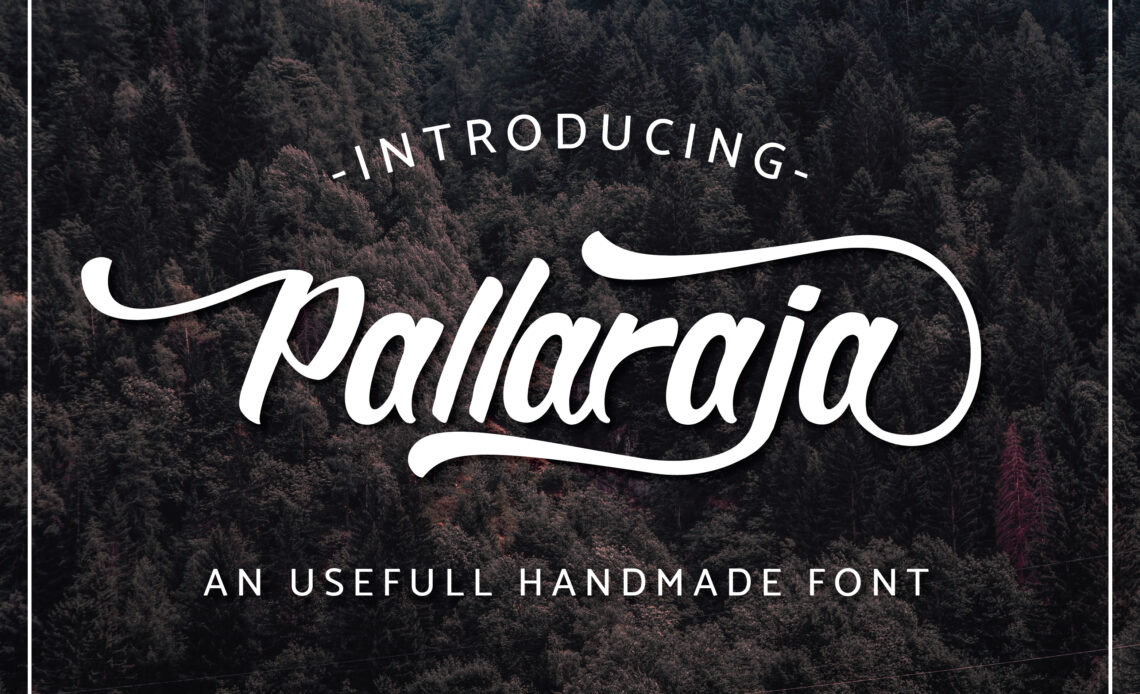
Are you ready to step into the world of enchantment, where letters dance with grace and charm? Pallaraja Font is a stunning display font that has entranced designers and artists worldwide. Created by the ingenious Mas Anis, this font is a magical fusion of romantic script design and athletic appeal, a captivating blend that sets it apart from the mundane.
With Pallaraja Font in your design arsenal, you hold the power to captivate and allure. Its intricate curves and fluid strokes evoke emotions like a passionate love letter or an enchanting fairy tale. Each character is a work of art, embellished with delicate flourishes and powerful forms, leaving your audience breathless.
Unleash your creativity and weave your enchanting tales with Pallaraja Font. It's perfect for headers and titles that demand attention, logos that imprint themselves on the mind, and branding that radiates with grace and charm. Its versatility extends from elegant wedding invitations to striking social media posts, from captivating book covers to bewitching business cards.
Pallaraja Font is a siren's call to those who seek extraordinary beauty in their designs. It's a font that breathes life into your words, transforming them into alluring whispers that linger in the hearts of your readers. With its unique combination of elegance and boldness, Pallaraja Font captivates, ignites, and leaves an indelible mark on all who encounter it.